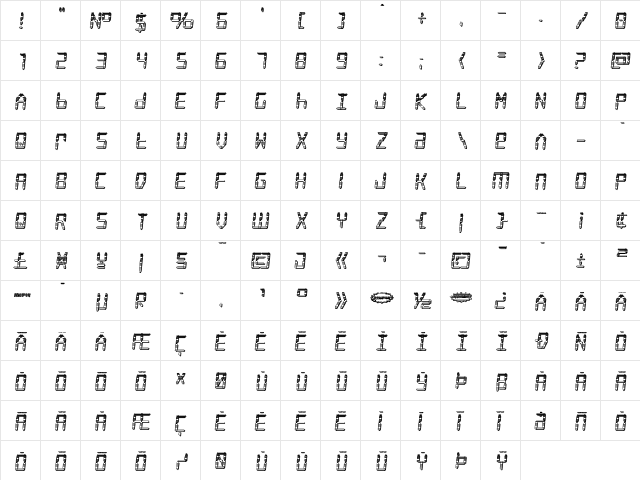
Frozen Crystal Chrome Regular
Design Context for Frozen Crystal Chrome Typeface
Frozen Crystal Chrome is a composed and adaptable typeface that performs quietly and consistently across a wide range of design contexts.